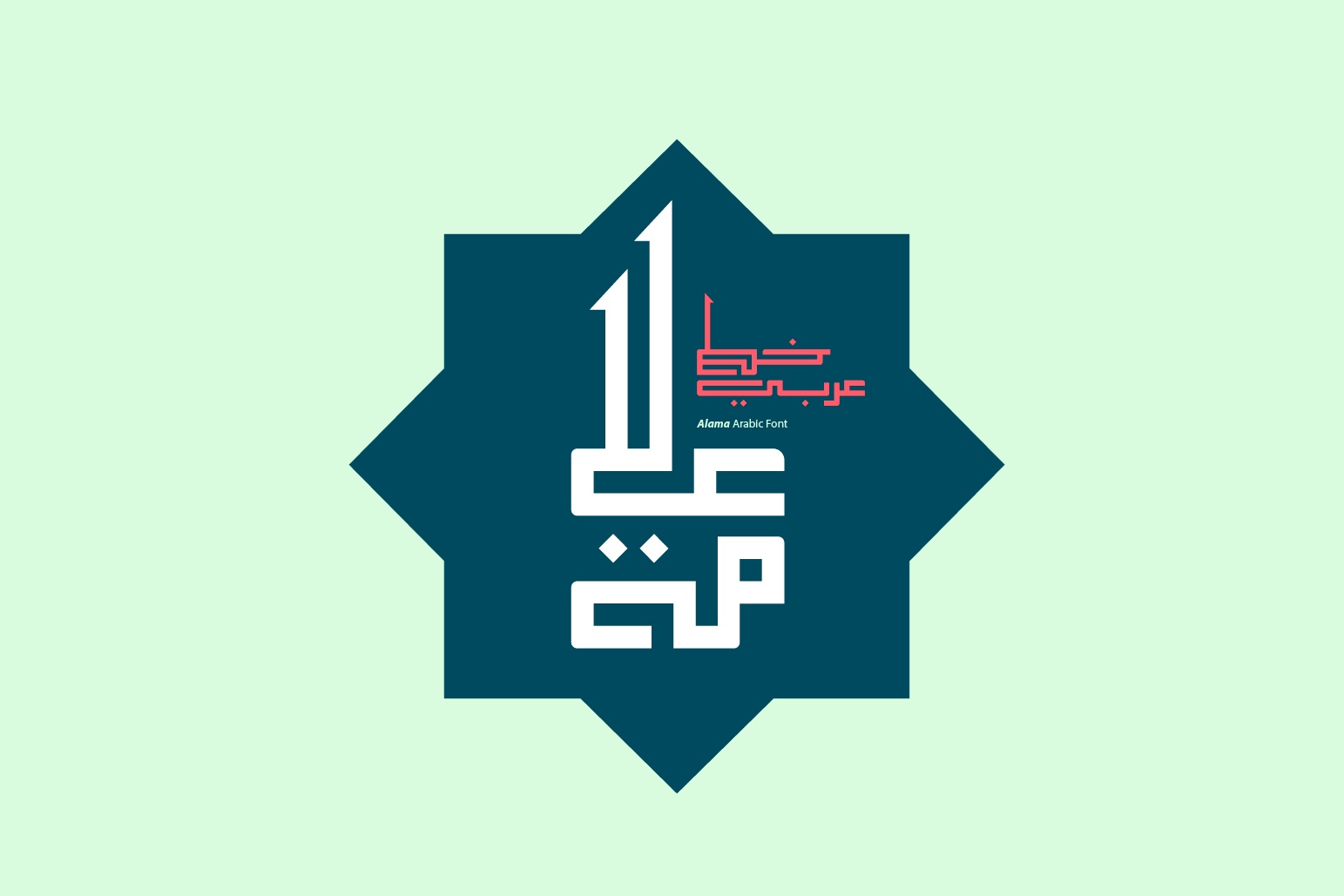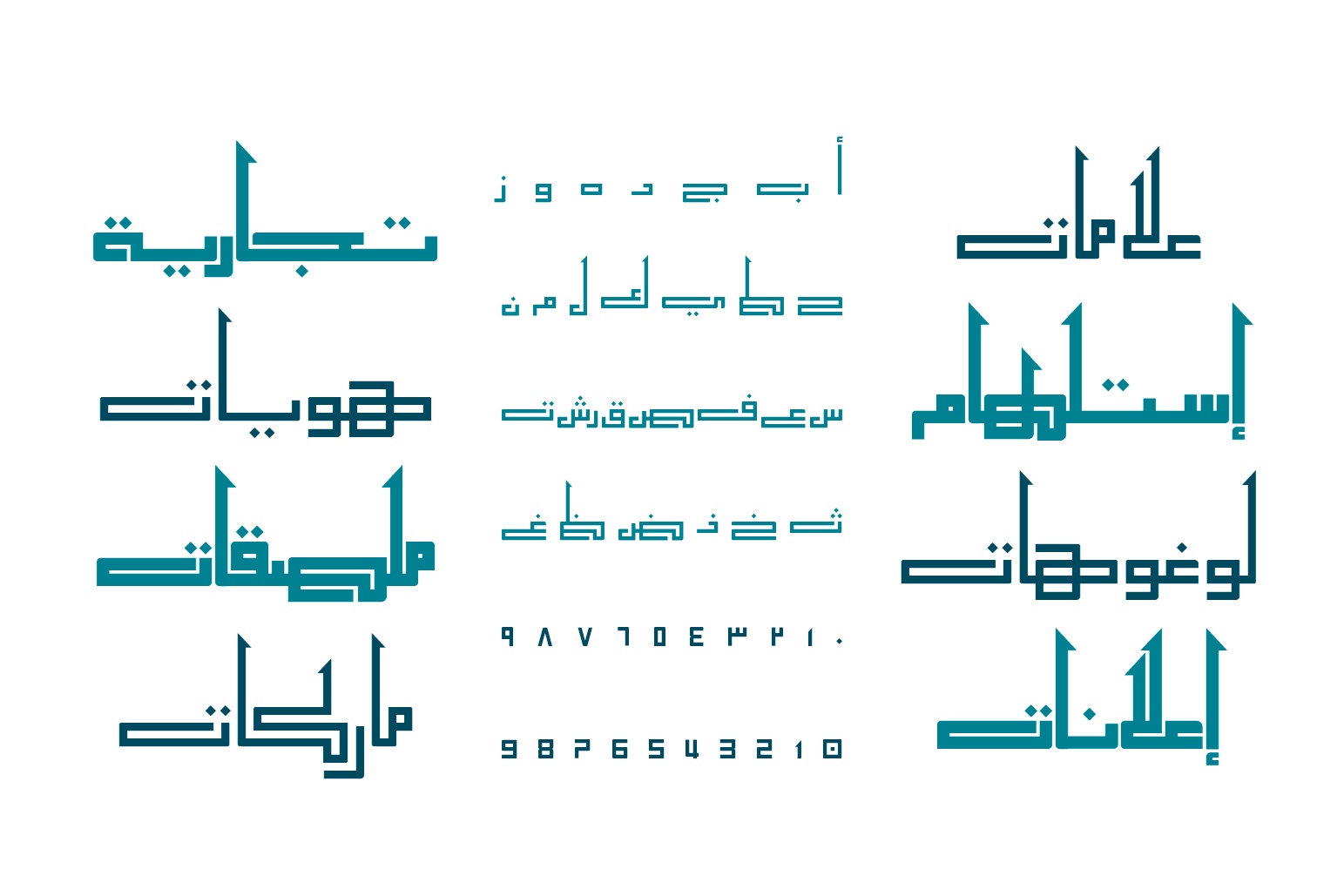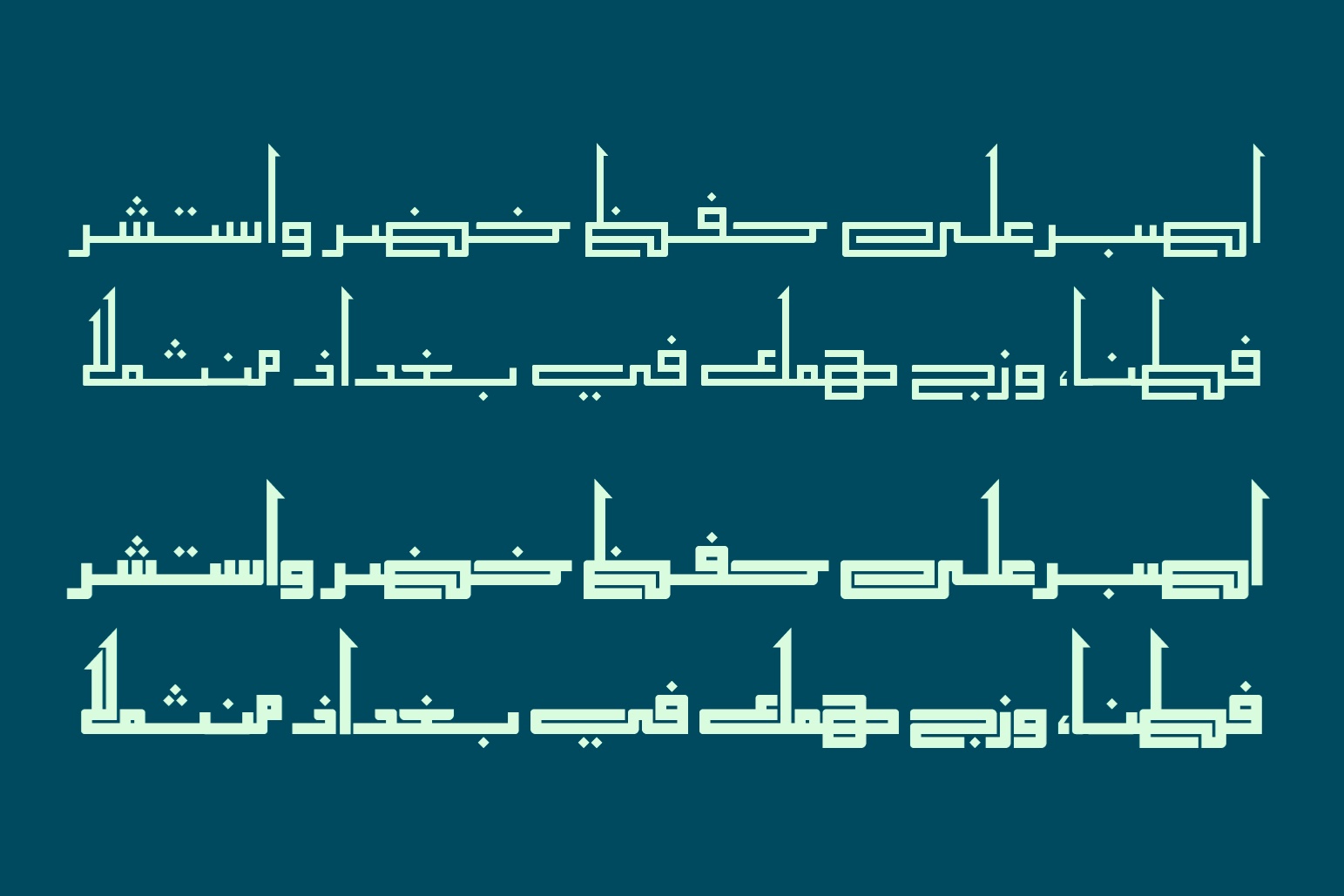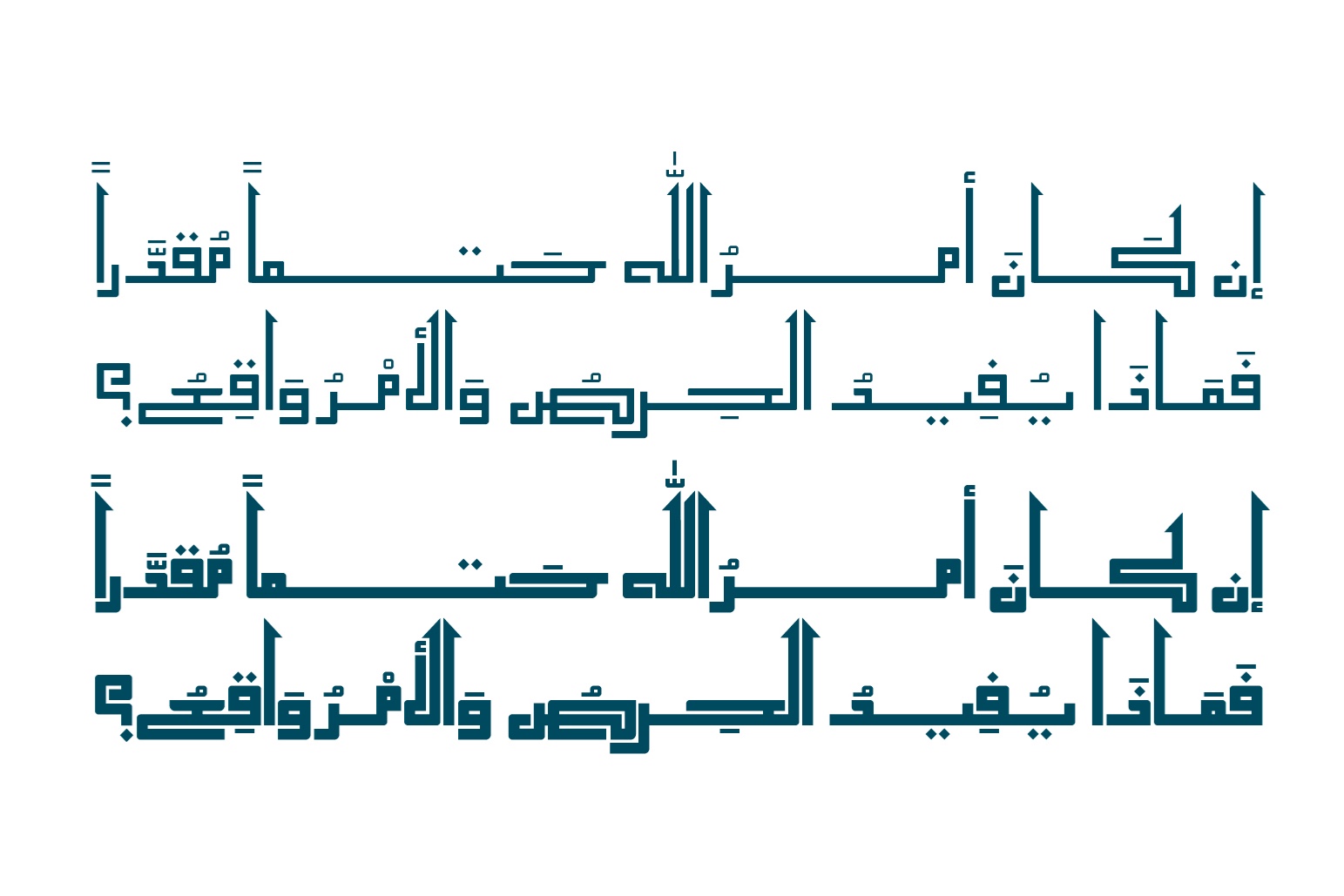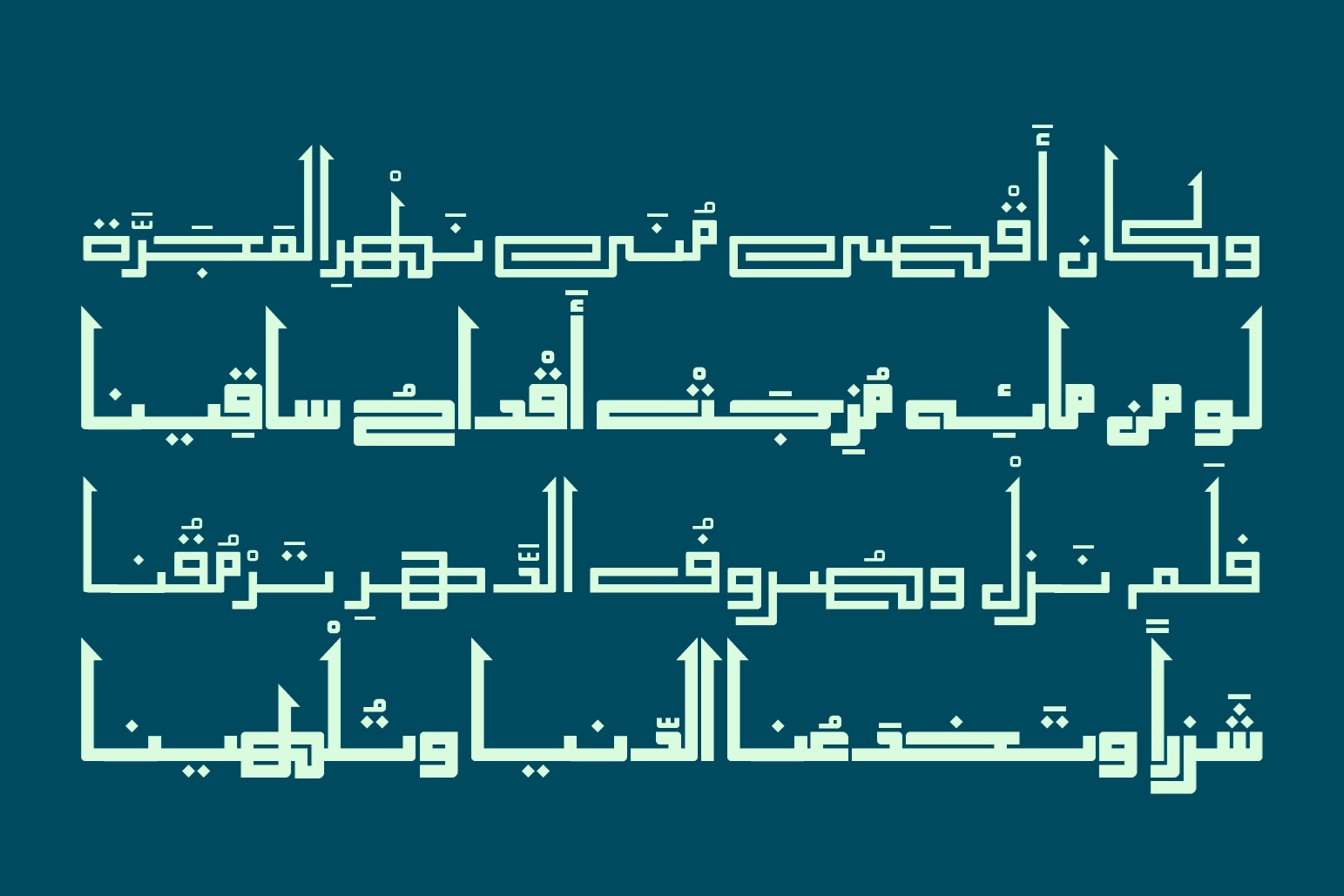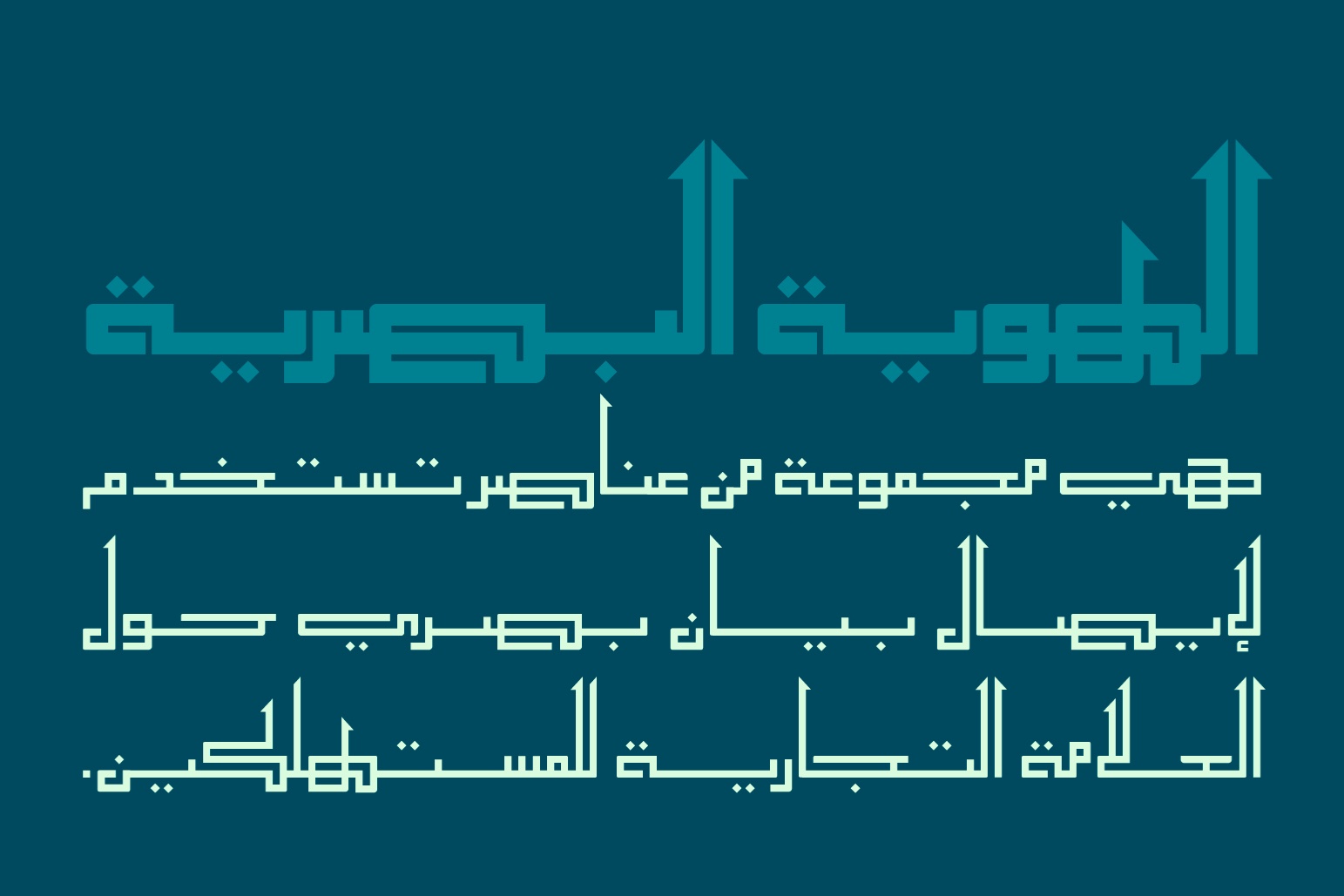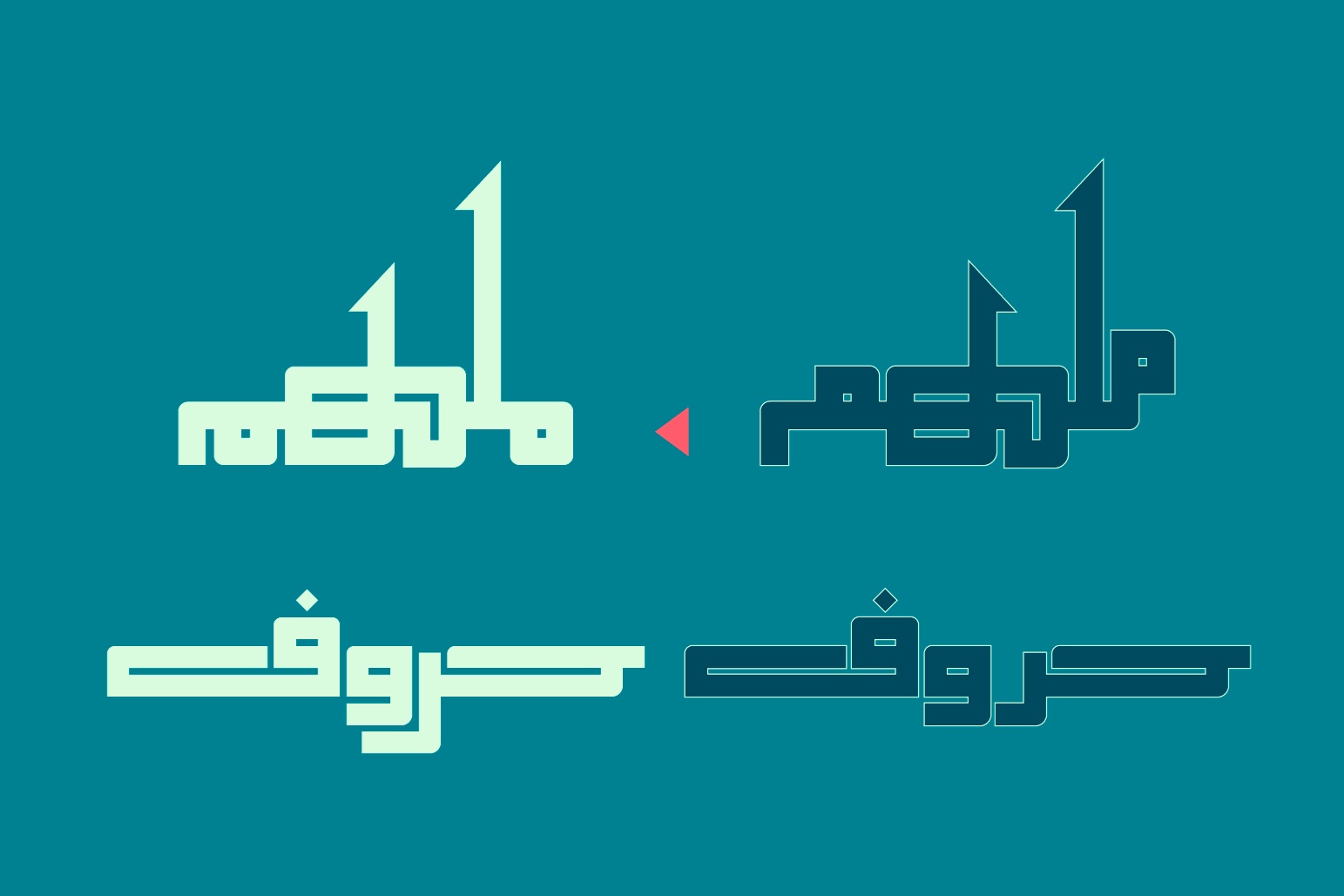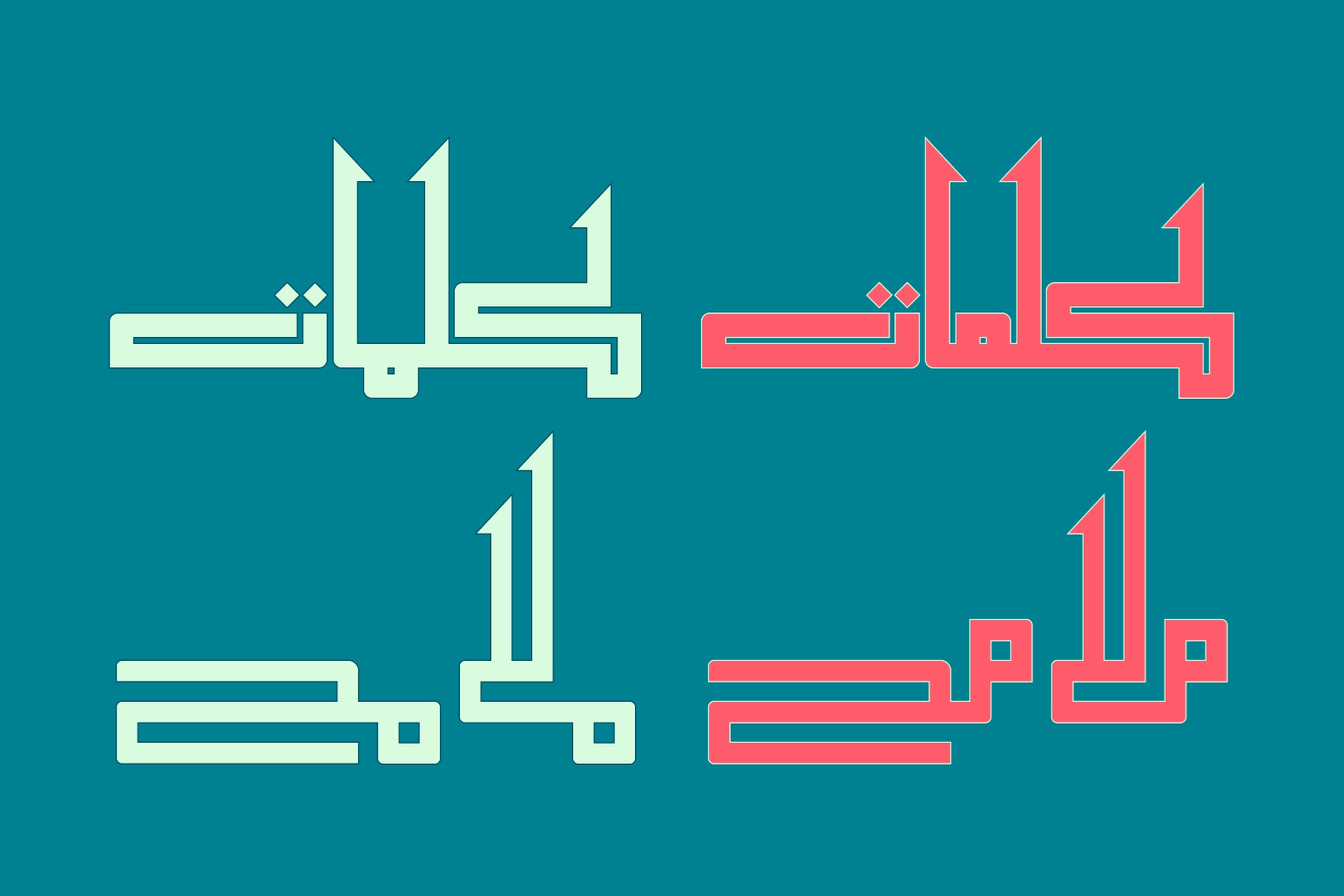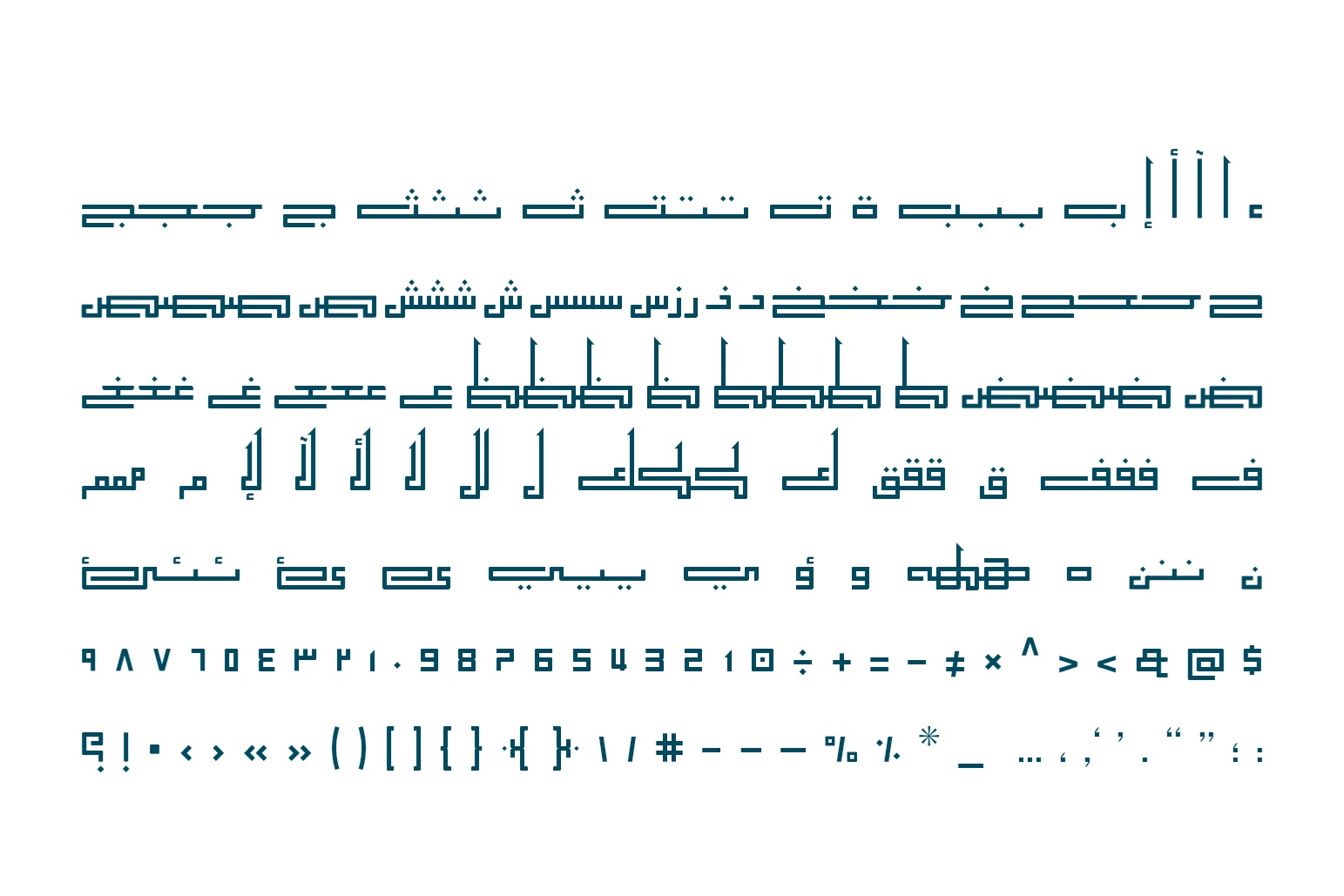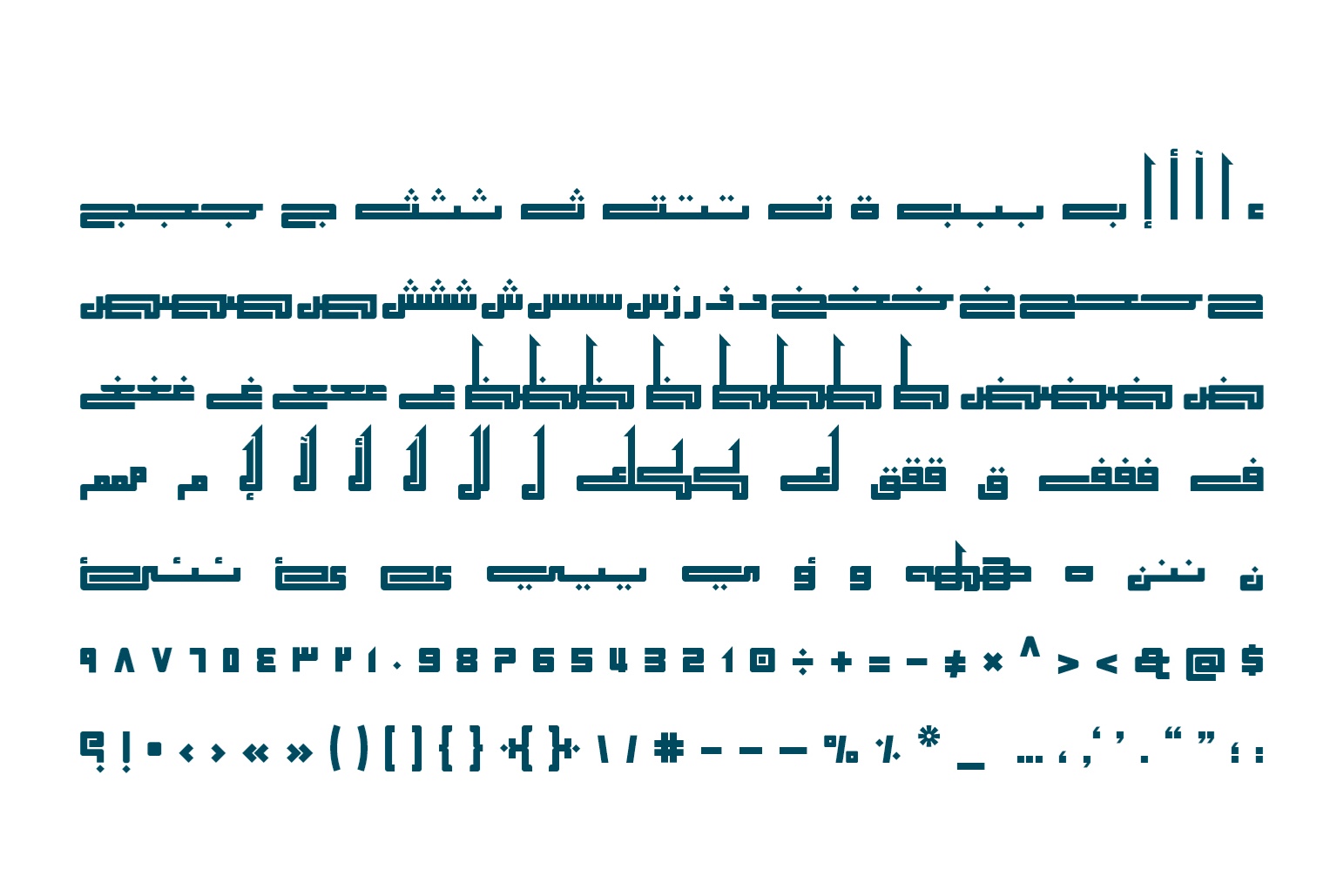
Alama is a Arabic display font inspired by Kufic script. The term "Alama" translates to sign, label, or logo in Arabic. This font is specifically crafted for branding and visual identity applications, while also being suitable for typographic designs. It is available in two weights: Regular and Bold.
Regular and Bold